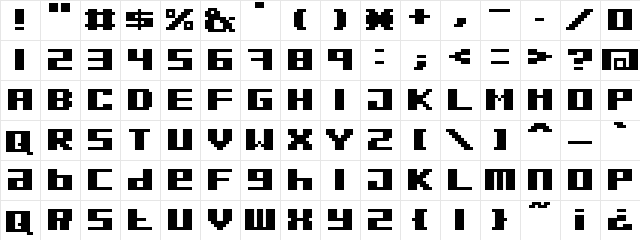
PXLSB UltraBold
Design Context for PXLSB Typeface
PXLSB is a composed and adaptable typeface that performs quietly and consistently across a wide range of design contexts. Its bold stroke weight gives it real presence on the page.